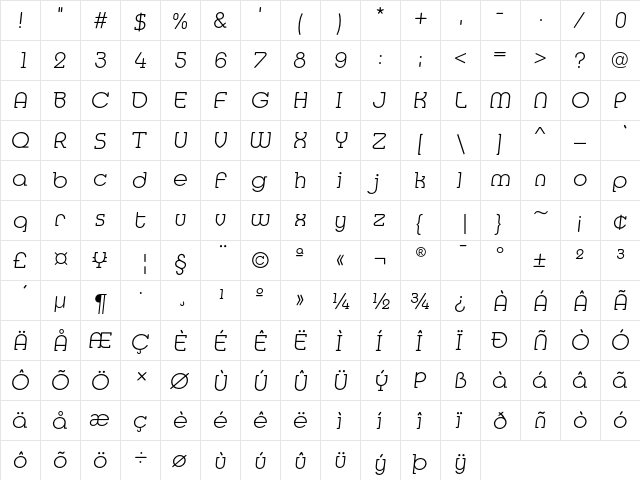
MediaSerifEF ExtraLightItalic
Design Context for MediaSerifEF Typeface
MediaSerifEF brings classic typographic sensibility to the table — its serifs and measured letterforms reflect centuries of print heritage. The dynamic lean of this cut emphasises speed and emphasis in any layout. Its slender proportions lend an understated elegance to any composition.
Pro Tip: Set MediaSerifEF at slightly larger body copy sizes than you would a regular-weight serif to compensate for its delicate stroke contrast.